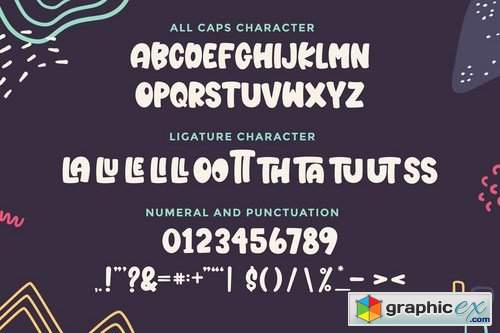
Tulena Lamoore
Tulena Lamoore is a all caps playful display font. This enchanting font will turn any creative idea into a true standout and will add a unique feel to your upcoming projects.